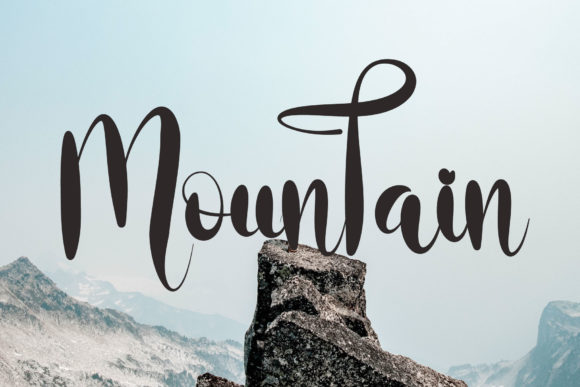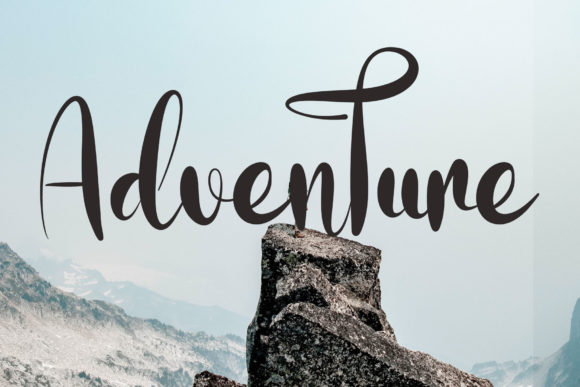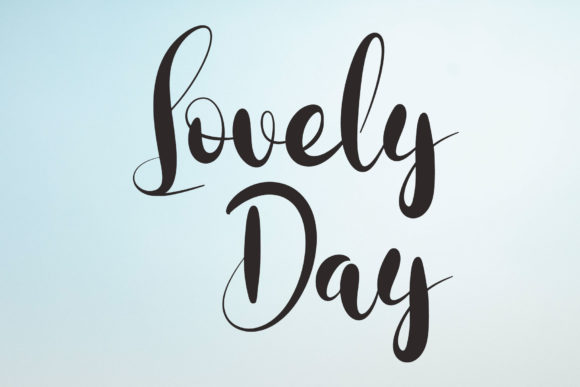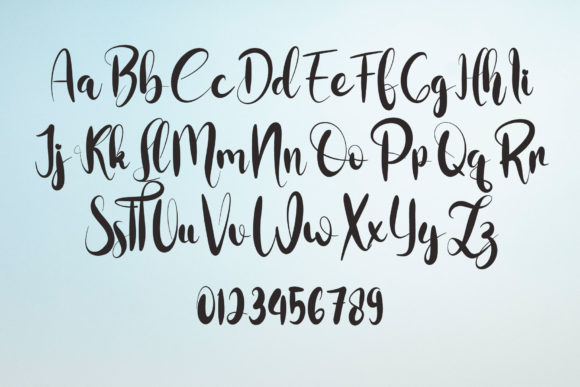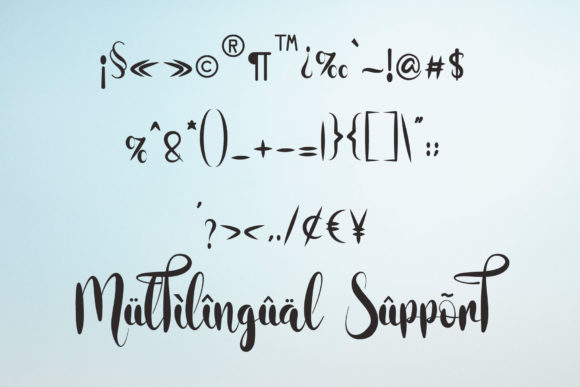
The Clatter Font: A Designer’s New Best Friend
I’ll never forget the time I was working on a project for a client who wanted a font that was both elegant and modern. I spent hours scouring the internet for the perfect one, but nothing seemed quite right. That was until I stumbled upon the Clatter font. It was love at first sight! ✨
Clatter is an exquisite handwritten font, masterfully designed to become a true favorite. It maintains its classy calligraphic influences while feeling contemporary and fresh. In this article, I’ll share my experience with Clatter, its features, and how to make the most of it in your designs.
- ✨ Elegant and modern feel that’s perfect for a wide range of projects
- ✅ High-quality design with intricate details and smooth lines
- 🎨 Versatile and adaptable to different styles and themes
- 💻 Easy to read and works well in both digital and print formats
While Clatter is an amazing font, there are a few things to keep in mind: 🤔
- ⚠️ Some of the more intricate glyphs and stylistic alternates can be a bit finicky to access
- ⚠️ The font may not work as well with very short texts or headings
- Experiment with different OpenType features and glyphs to add some personality to your text
The Story Behind Clatter
Clatter was designed by a talented typographer who wanted to create a font that was both elegant and modern. The designer drew inspiration from traditional calligraphy and handwriting, combining intricate details with smooth lines and a fresh feel. The result is a font that’s perfect for a wide range of projects, from formal events to creative designs.
Q: What is Clatter font?
Clatter is a beautiful handwritten font that’s perfect for a wide range of projects. It’s elegant, modern, and versatile, making it a great choice for designers, crafters, and creative hobbyists.